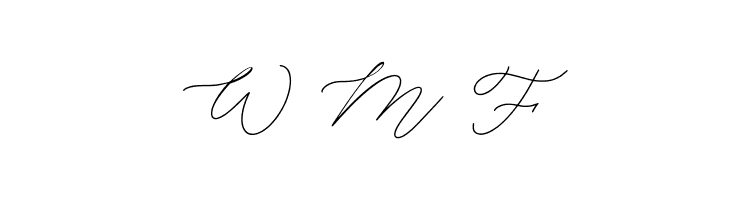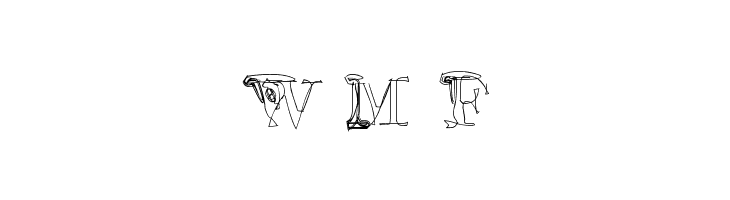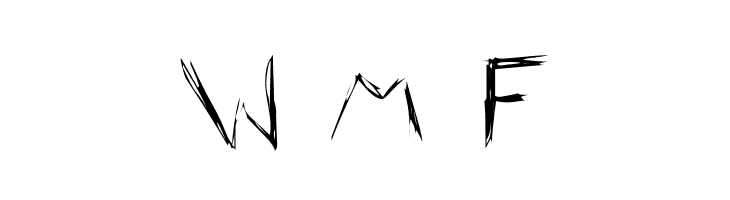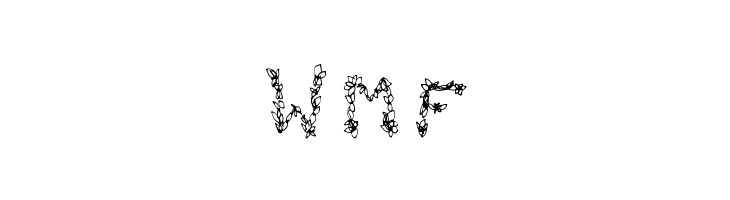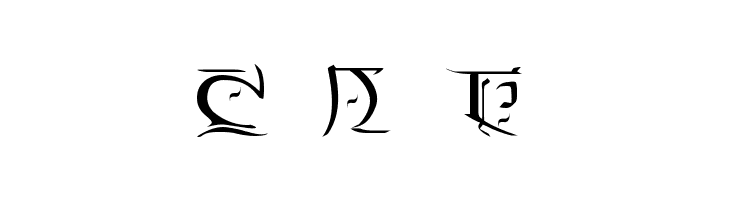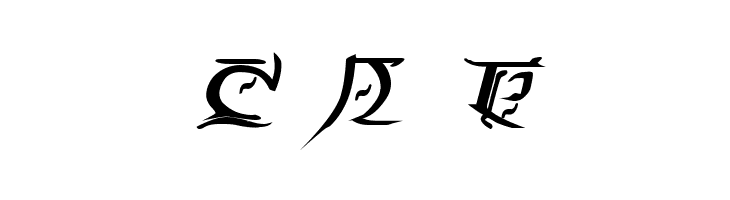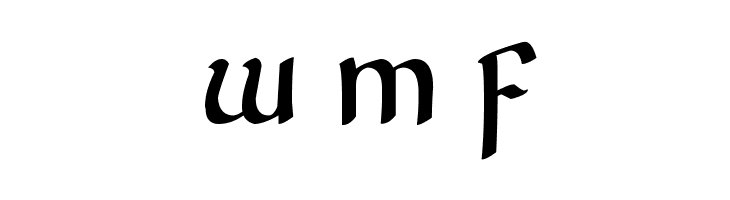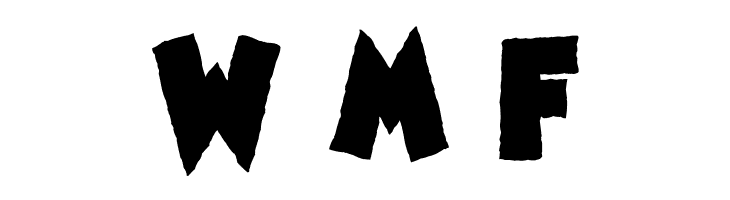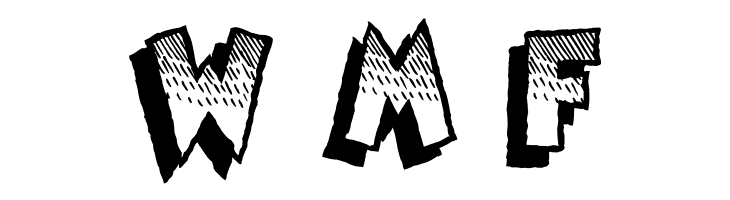
• Fairies
A whimsical, decorative font with a fairy-tale-like appearance.
• Fairy Lavender
A graceful and elegant script font with flowing, interconnected characters.
• Fallen Dreamer
A playful, hand-drawn font with tall, narrow letters and consistent stroke width.
• FallGreetings
A decorative font with intricate leaf and vine patterns for a whimsical, nature-inspired look.
• Falmer
An intricate, decorative font with sharp, angular lines and elaborate flourishes.
• Falmer Bold Italic
A bold, decorative font with Gothic influences and intricate details.
• False Advertising
An artistic, hand-drawn font with intricate, sketch-like details.
• Family Bonding
• Famous Oldies
A bold, playful font with a 3D shadow effect and hand-drawn texture.
• Famous Oldies Black
A bold, retro-inspired font with a playful and hand-crafted appearance.